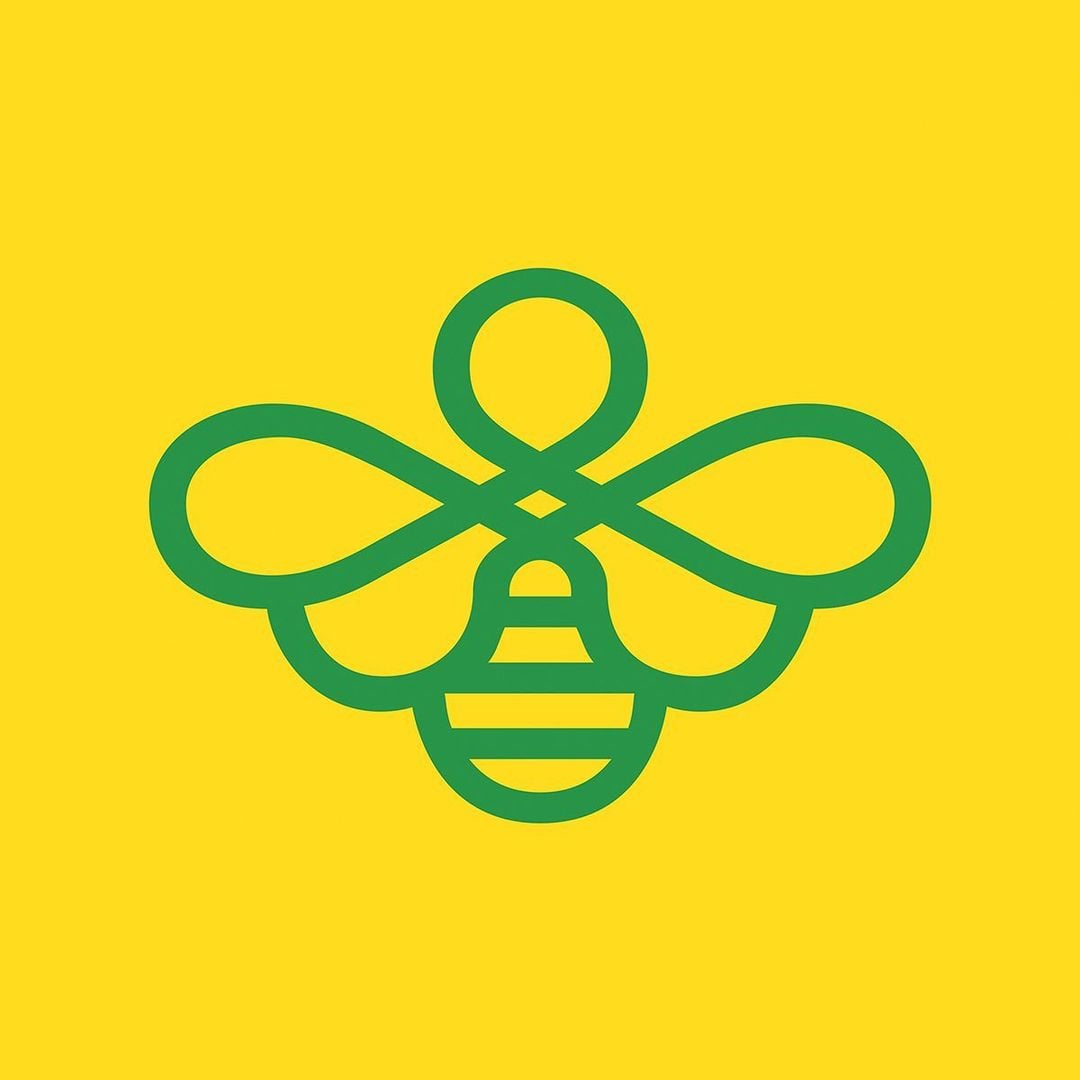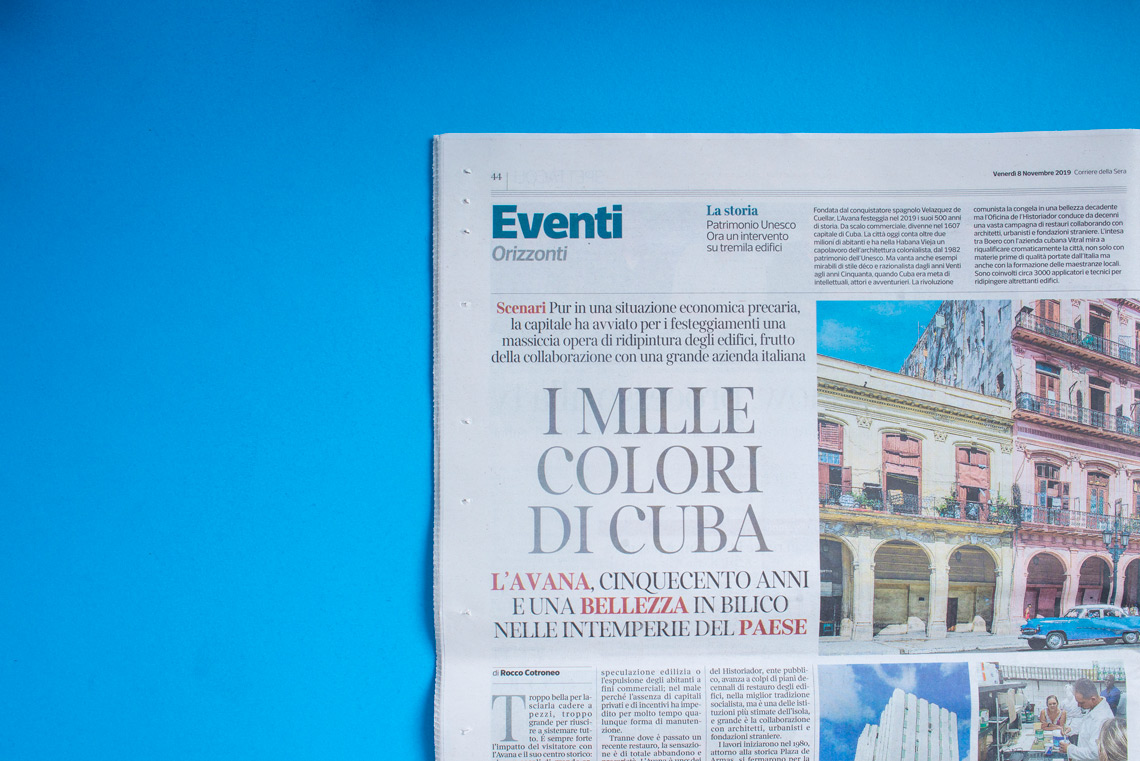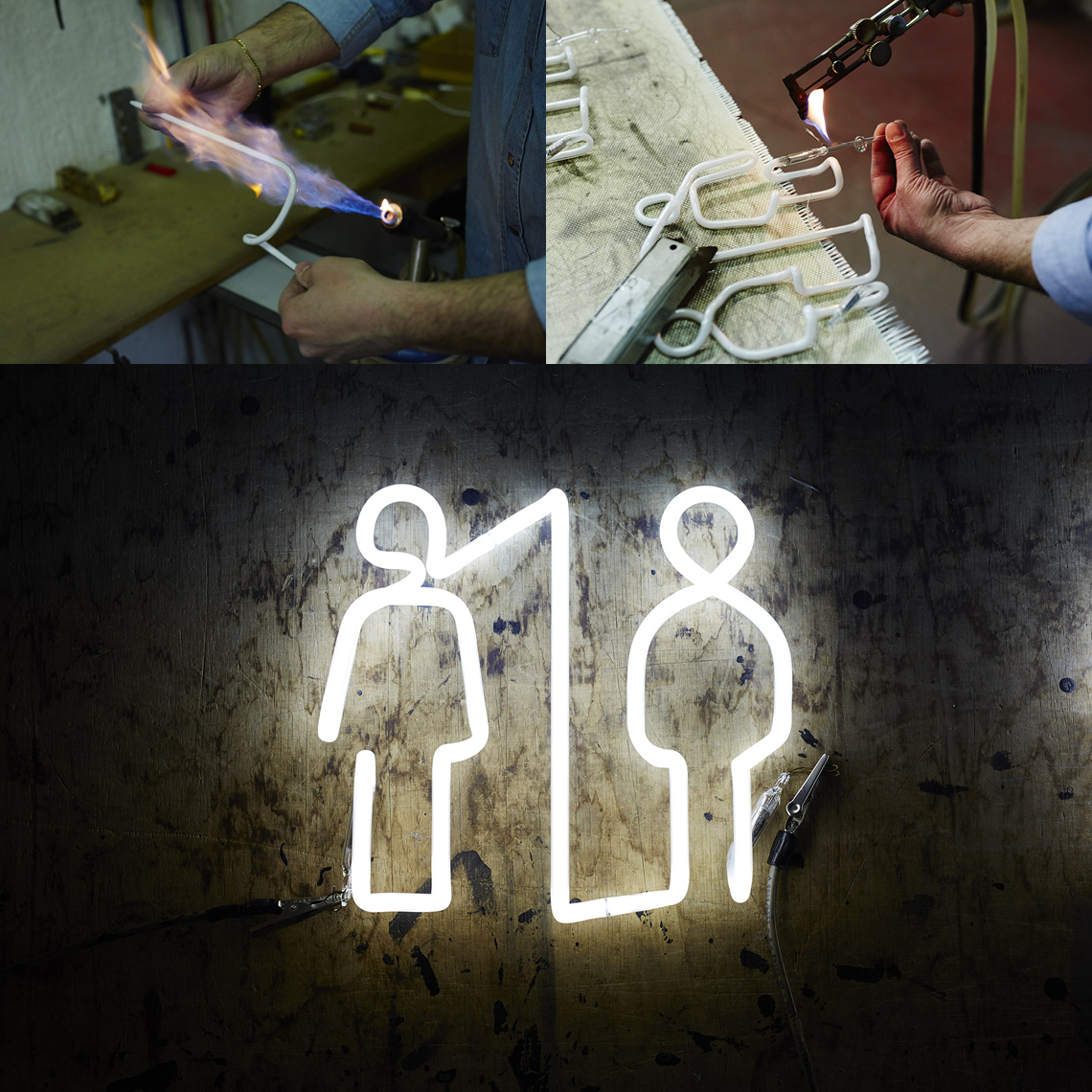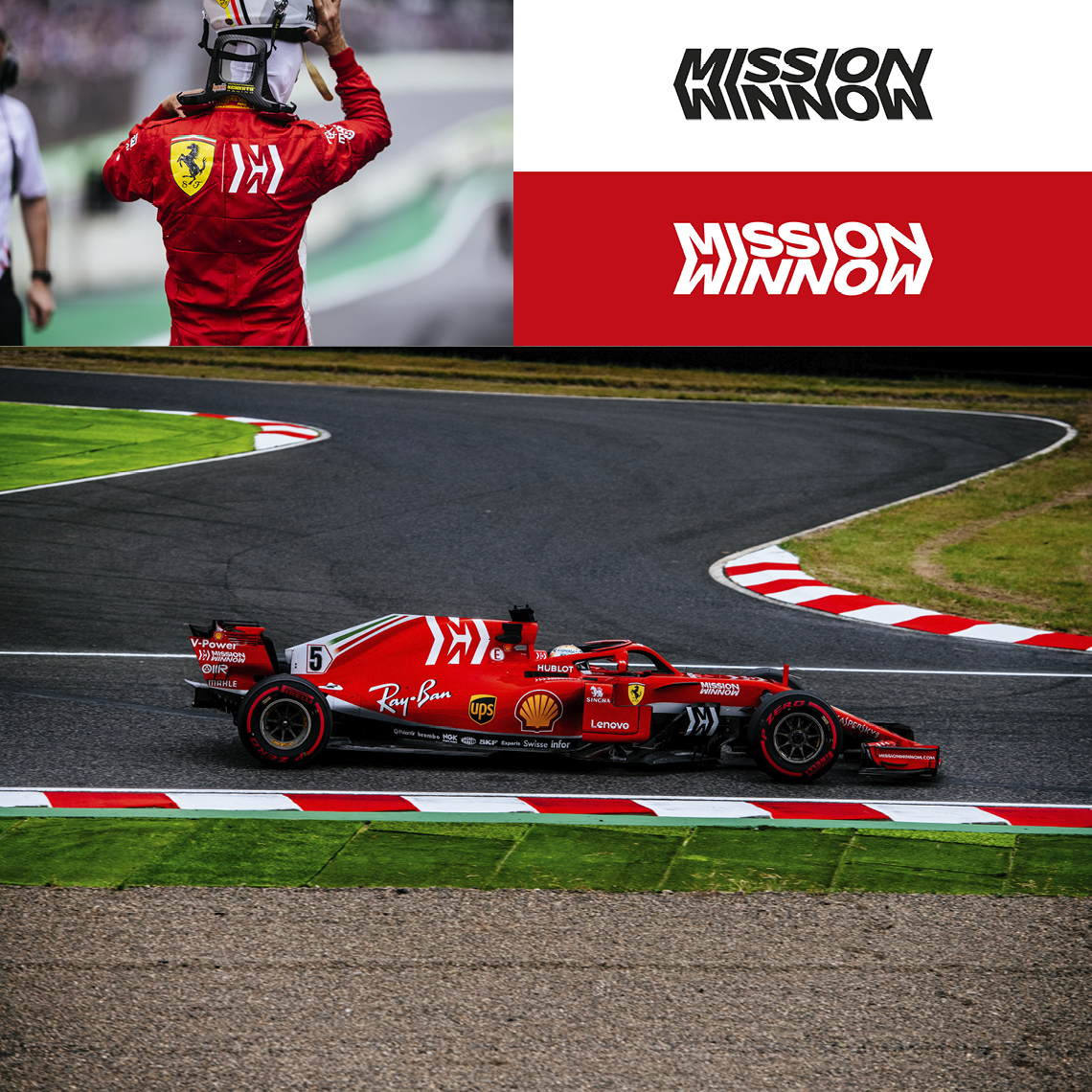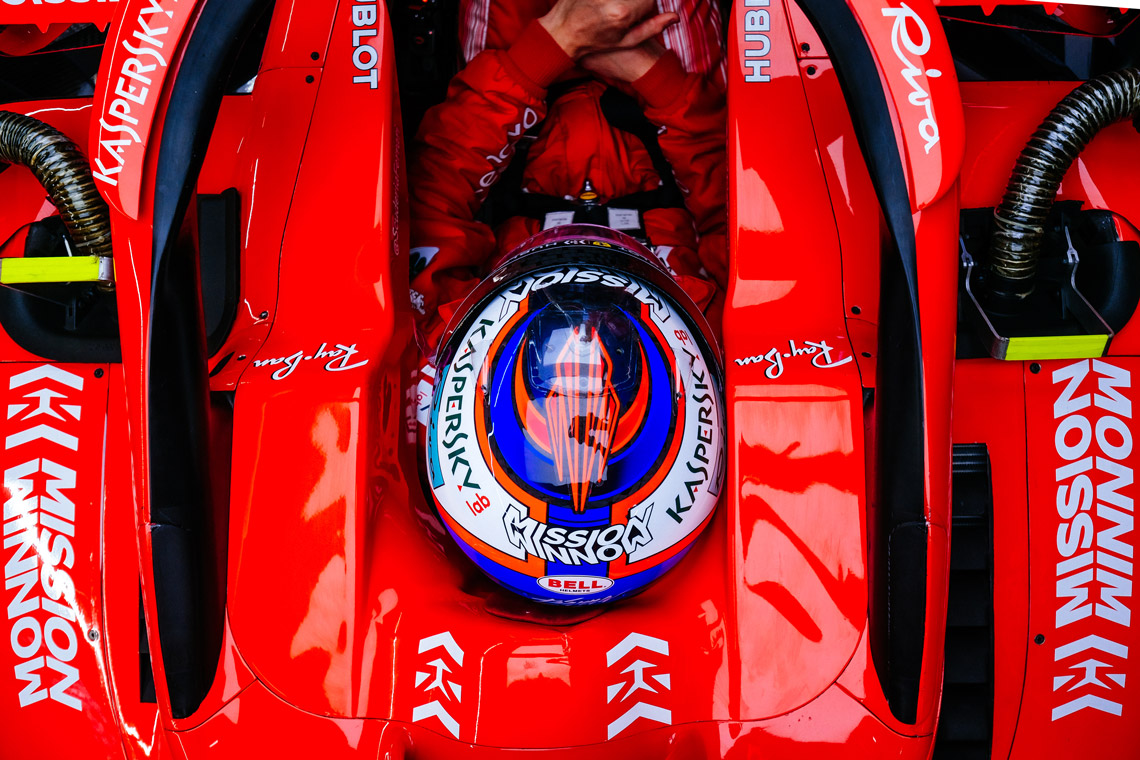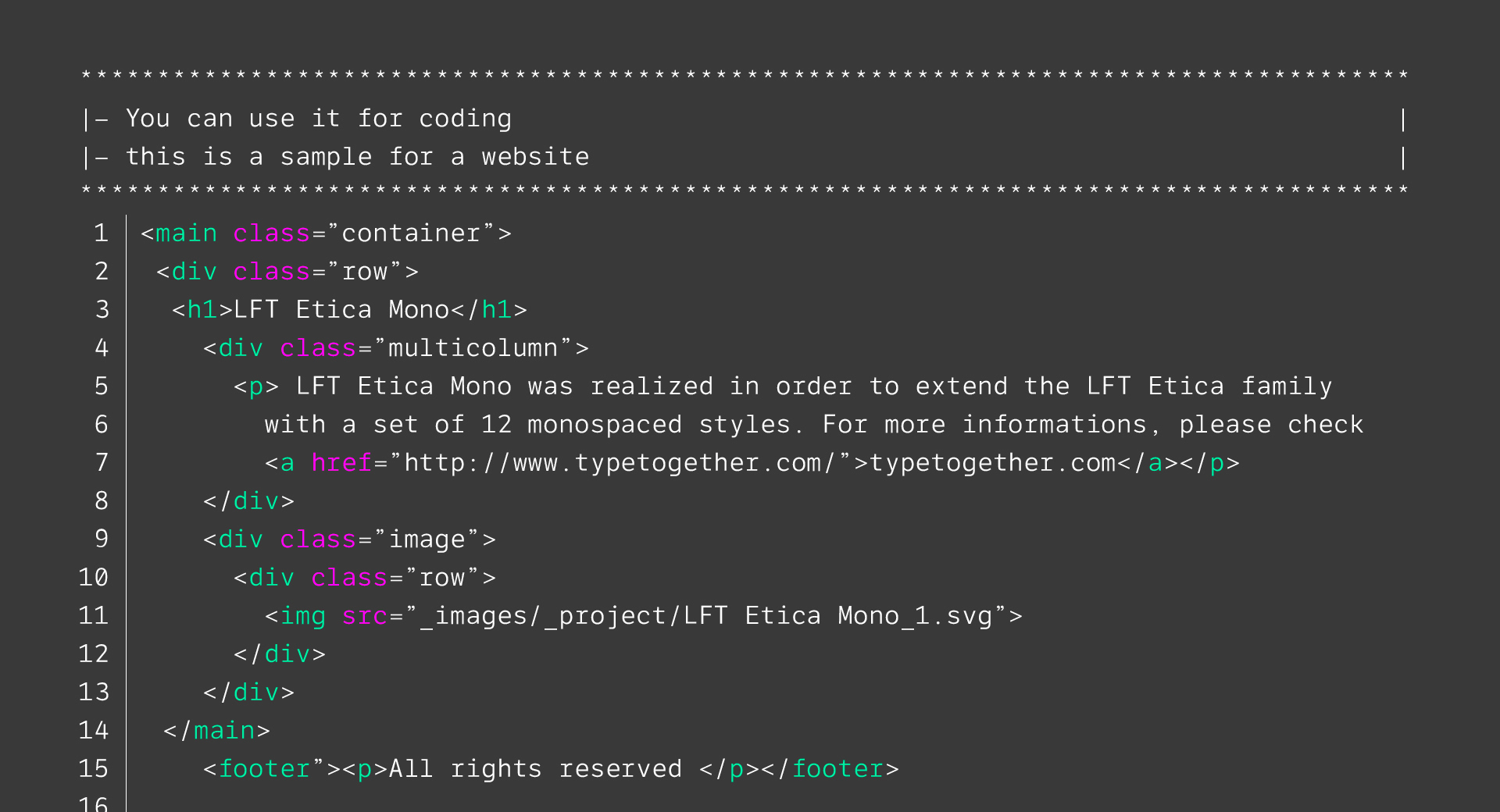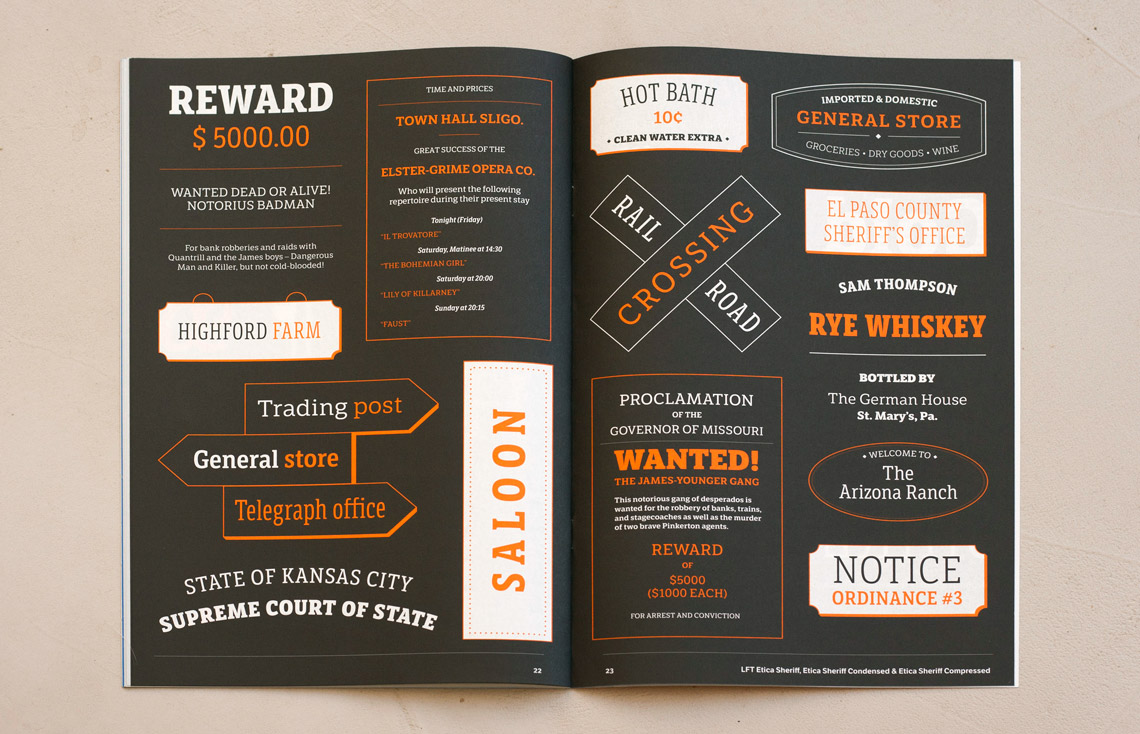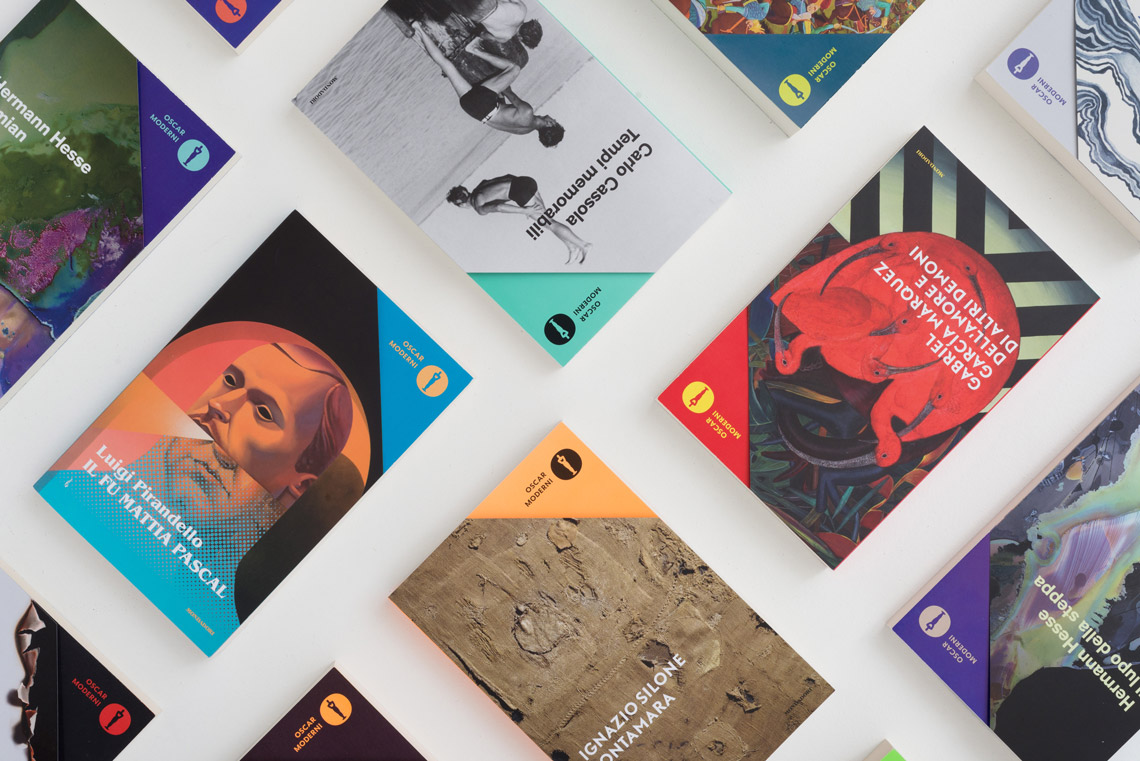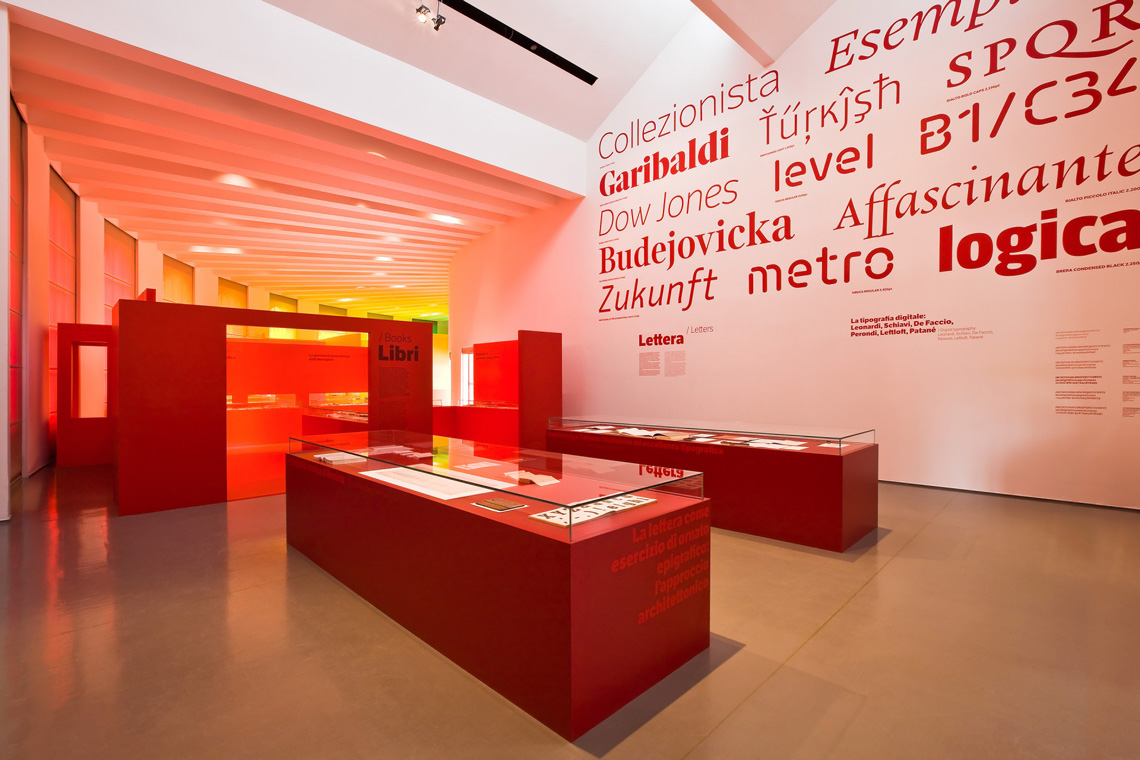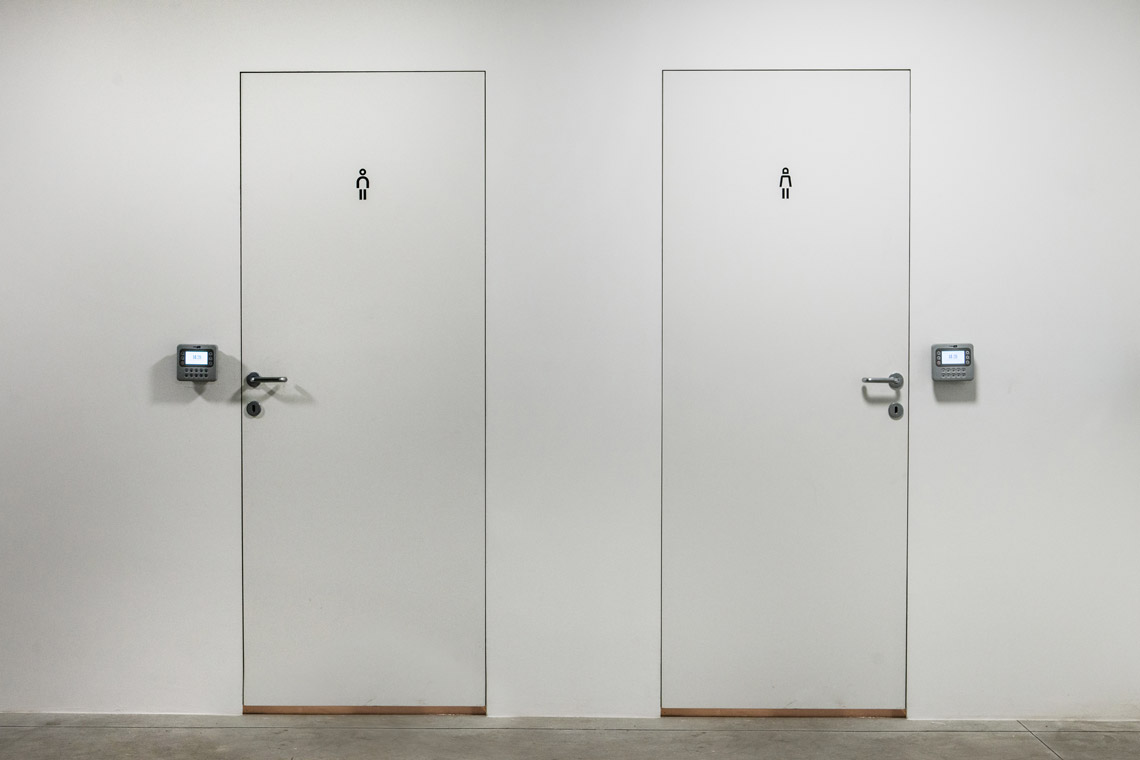
Design, strategy & type: an interview with Andrea Braccaloni of Leftloft
Leftloft studio has created or rebranded the biggest names in the world, from Moleskine journals, Pirelli, Mondadori and Ferrari to renowned museums, book publishers, and the Subito brand. They are global leaders in strategy, design, and everything under that banner. Lucky for us, TypeTogether has a long-running relationship with them and are the exclusive publisher of their unique and modern typefaces.
For dOCUMENTA (13) — the largest contemporary art exhibition that takes place every five years in Kassel, Germany — Leftloft “did not build a visual identity, but an analytical grammar,” a flexible grammatical structure designed over a three year period.
Introducing Mr Braccaloni
Andrea Braccaloni studied at the Milan Polytechnic Faculty of Architecture, where he also met his future partners. In 1997, with Francesco Cavalli, Bruno Genovese, and David Pasquali, he founded the Leftloft design and communication agency in which he works as design director, type designer, and expert in communication strategy and analysis. For this interview we discussed his loves of typography, all things design, and creating award-winning strategy for top-tier brands worldwide.
Hello, Andrea! Thank you for taking time out of your busy schedule to talk with us. Let’s start with the basics. You studied architecture at the Milano Politecnico and then ended up being the founder and creative director of one of Milan’s leading graphic design studios, as well as a type designer. Can you walk us through what took you from architecture to graphic design?
Sure. As you mentioned I was studying architecture because my father is an architect and my plan was to join his studio sooner or later. But at the beginning of the second year I met my future studio partners at an Urban Planning class. So my plan was updated and I became very committed to becoming an urban planner, and maybe an academic in the field one day.
Our new friendship was propelled by a lot of new interests and we started taking the same classes. In order to have some space to design the big boards requested by university projects, we ended up renting an old workshop. We were also doing some politics at the time so, to pay the rent, we started designing political posters, brochures, flyers.
We started having more fun designing stuff than pursuing our academic career. So, after a while, I had to update my plans once again and tell my father once and for all that I was not going to be an architect.
And more specifically, what initially attracted you to type design? Did a certain kind of schooling lead you to create fonts?
As most kids, I spent my childhood drawing all the time. Then, as a teenager, I mastered the fine art of VHS label hand lettering (!), and around 16 I started painting graffiti with my best friend. Hip-hop culture definitely drove me toward letters.
When I moved from my hometown Bologna to study in Milano, I quit with graffiti. But as soon as I realised I wanted to be a designer, letters again became a huge interest of mine. Since I didn’t have any formal schooling in the field, it took me a while to figure out how things were supposed to work. I designed Leftloft’s first typographic logo with Autocad because Freehand didn’t seem precise enough to me!
Then, I randomly met Sebastiano Cossia Castiglioni, who at the time was running a studio named Font Lab with his wife Jane Patterson. They’ve been very nice to me. I shamelessly showed them my first typographic efforts and they gave me a copy of Bringhurst’s The Elements of Typographic Style along with a bunch of advice. Among them, the existence of Altsys Fontographer. It was more than enough for me to completely fall in love with type.
An informal meeting during ATypI 2018 in Antwerp with Beatrice D’Agostino (left), Andrea Braccaloni, and José Scaglione.
Die kleine Fonderie: Teach & Help
In the early 2000s the ‘Die kleine Fonderie’ was part of Leftloft. Was it an experimental lab for type design? Can you explain its structure, its focus, and how it worked?
Well, Die kleine Fonderie was born as a sort of deal between a few friends and colleagues and myself: “I’ll teach you what I’ve learned so far in type design and you help me finish my fonts.” It [finishing the fonts] never really happened, but it was fun.
Basically we met in our studio after work and each participant was supposed to design a simple typeface that I would review each time.
And, don’t tell anyone, but Veronika (Burian) took part in it too and I have proof: the workshop itself was actually named in German to honour Veronika. She came from Germany and it sounded so exotic to us! By the way, some of the typefaces developed by Die Kleine Fonderie have been published in a book named Italic 1.0. Il disegno di caratteri contemporaneo in Italia, edited by Silvia Sfligiotti, Paola Lenarduzzi and Mario Piazza, and was published by Aiap Edizioni in 2002.